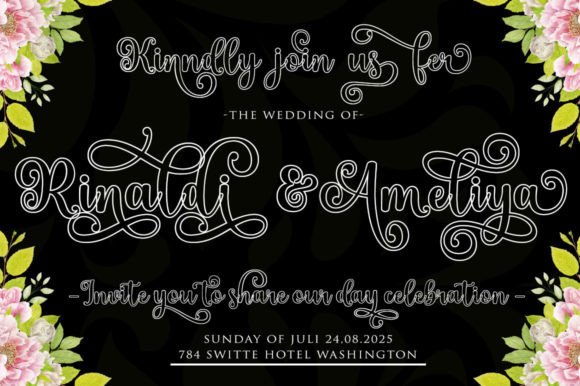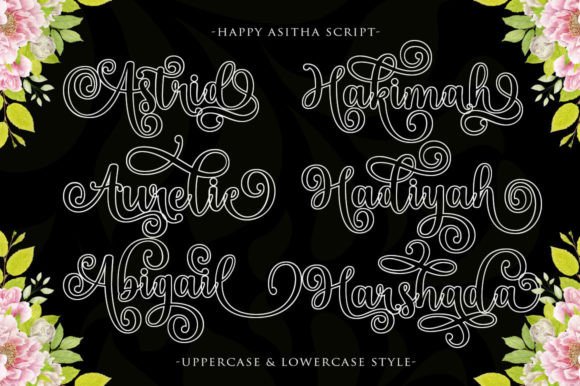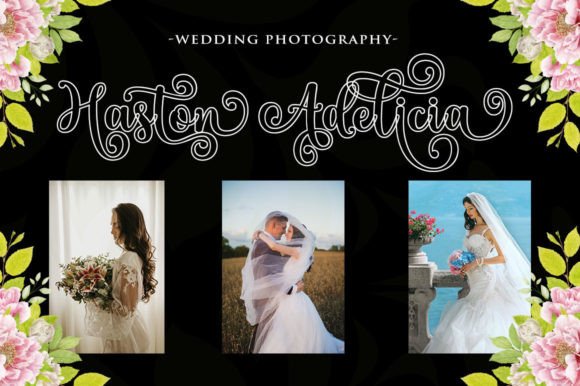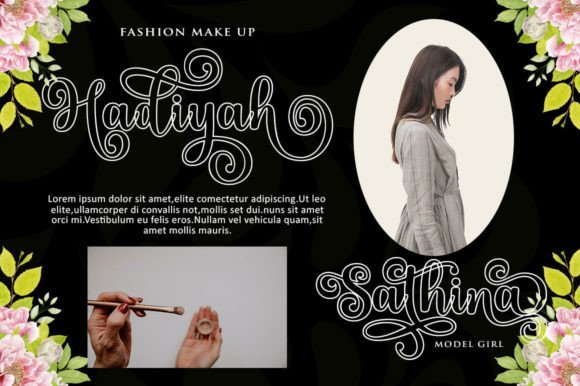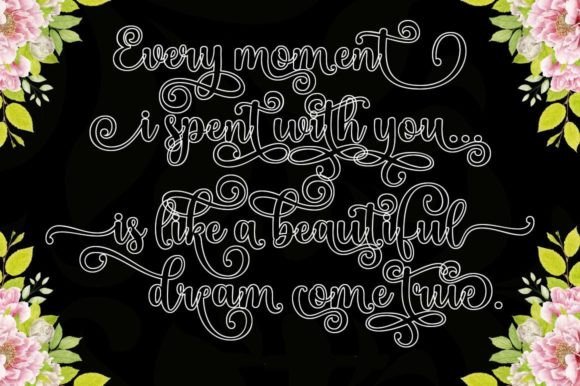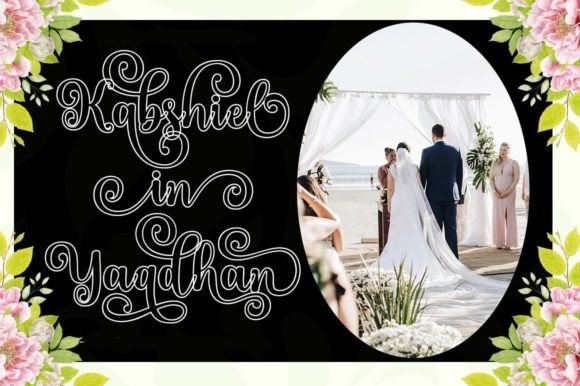
Introducing Happy Asitha Script Font: Elevate Your Creativity with Modern Calligraphy
Are you a designer, crafter, or DIY enthusiast looking for a font that can add a touch of elegance and sophistication to your projects? Look no further than the Happy Asitha Script Font! This modern calligraphic outline font is perfect for anyone who wants to turn their creative ideas into stunning works of art.
What Makes Happy Asitha Script Font Special?
Happy Asitha Script Font is a beautifully designed font that features a unique blend of traditional calligraphy and modern flair. Its outline design makes it versatile and easy to use, while its PUA (Private Use Area) encoding ensures that you can access all the glyphs and ligatures with ease.
Whether you’re looking for fonts for Instagram, calligraphy scripts for DIY projects, or simply want to add a personal touch to your digital creations, Happy Asitha Script Font is the perfect choice. Its modern calligraphic style is sure to impress and leave a lasting impression on your audience.
Key Features of Happy Asitha Script Font
- Modern Calligraphic Outline Font: Happy Asitha Script Font features a beautiful, modern calligraphic design with an outline style that’s perfect for adding a touch of elegance to your projects.
- PUA Encoded: With PUA encoding, you can access all the glyphs and ligatures with ease, making it simple to create stunning calligraphy pieces.
- Versatile: Happy Asitha Script Font is perfect for a wide range of projects, from Instagram graphics and social media posts to DIY crafts and digital art.
- Elegant and Sophisticated: This font is designed to add a touch of elegance and sophistication to your projects, making it perfect for anyone who wants to create beautiful and eye-catching designs.
To get the most out of Happy Asitha Script Font, be sure to experiment with different design techniques, such as combining the font with other design elements, adjusting the size and color, and using the glyphs and ligatures to add a personal touch to your designs.
Happy Asitha Script Font is perfect for designers and crafters who want to add a touch of elegance and sophistication to their projects. Here are a few ideas to get you started:
- Instagram Graphics: Use Happy Asitha Script Font to create stunning Instagram graphics, including quotes, posters, and social media posts.
- DIY Crafts: Add a personal touch to your DIY crafts, such as handmade cards, gift tags, and scrapbook pages, with Happy Asitha Script Font.
- Digital Art: Use Happy Asitha Script Font to create beautiful digital art pieces, including illustrations, typography, and mixed media designs.
Happy Asitha Script Font is a versatile and elegant font that’s perfect for designers, crafters, and DIY enthusiasts who want to add a touch of sophistication to their projects. With its modern calligraphic outline design and PUA encoding, this font is sure to become a favorite in your design arsenal.